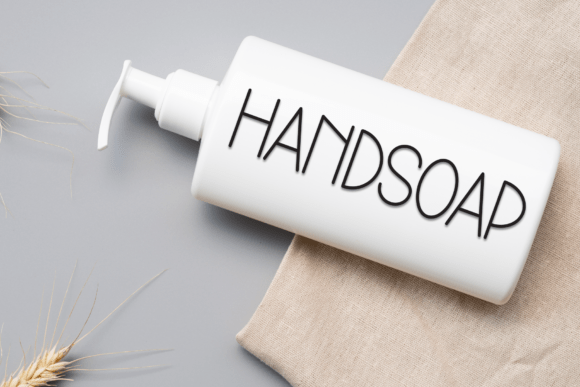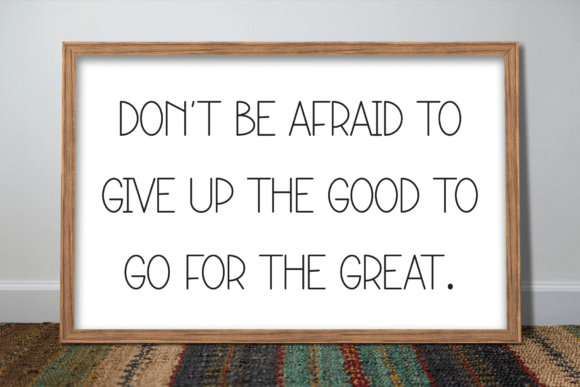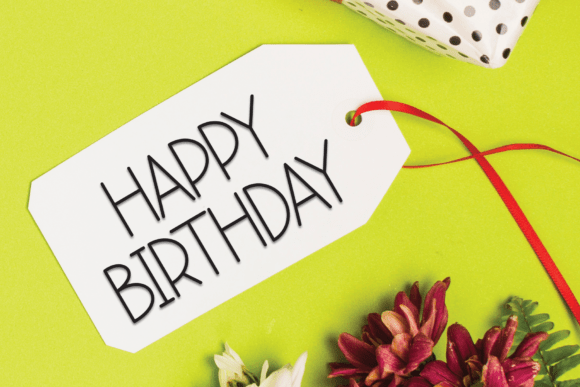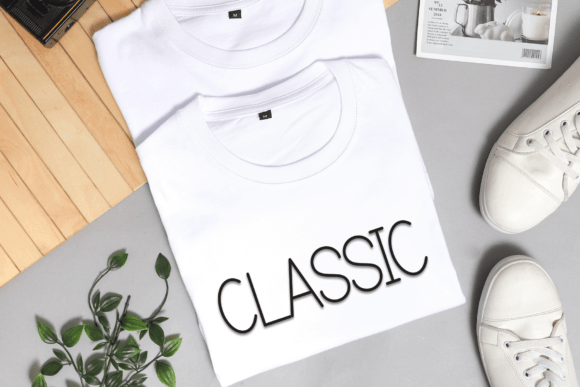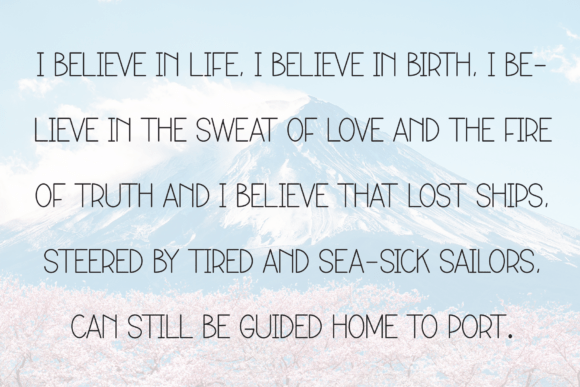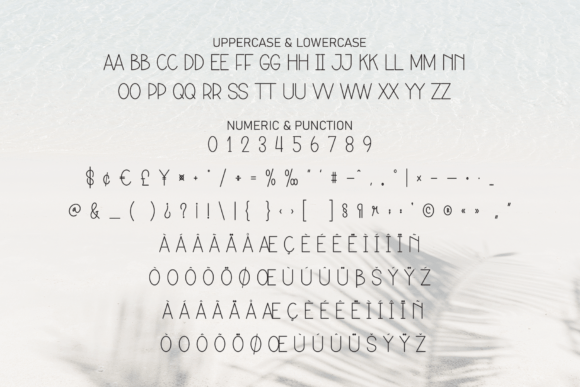
Discovering the Perfect Font for Your Next Design Project
Have you ever stared at a blank page, trying to come up with the perfect font to match your brand’s personality? It’s a challenge many designers face, but it’s also an opportunity to discover something truly special. For me, it happened on a sunny beachside morning, where the sound of the waves and the warmth of the sun inspired a sense of calm and creativity.
That’s when I stumbled upon the Beach Minimalist Font, a beautiful display font that embodies the carefree spirit of the beach. With its clean lines, balanced letterforms, and subtle rounded edges, it’s the perfect combination of simplicity and approachability. This versatile font is ideal for branding, headlines, packaging, and digital content, adding a warm and inviting touch to any design.
Whether you’re a seasoned designer or just starting out, the Beach Minimalist Font is a valuable addition to your toolkit. Its crisp structure and charming style deliver clarity and charisma in equal measure, making it a must-have for any design project.
Beach Minimalist Font Key Features
- Font Styles: Beach Minimalist Font offers a range of styles, including Regular, Italic, Bold, and Bold Italic, to cater to various design needs.
- Character Set: The font includes a comprehensive set of characters, including uppercase and lowercase letters, numbers, punctuation, and special characters.
- Resolution: Designed to work at high resolutions, making it perfect for use in print and digital media, including web design, advertising, and publishing.
- Size Range: Suitable for use in various font sizes, from 12px to 72px, making it versatile for different design applications.
- Unique Characteristics: The font features a clean, minimalist design with subtle beach-inspired elements, such as wave-like curves and gentle textures, adding a touch of elegance and sophistication.
Beach Minimalist Font Review
I recently had the chance to work with the Beach Minimalist Font, and here’s my honest take on it. ✨ One thing I really like is the airy, laid-back feel it brings to any design project. The font is perfect for beach-themed websites, travel blogs, or any other project that needs a relaxed vibe.
- The Beach Minimalist Font is incredibly easy to read, even at smaller sizes.
- The font’s minimalist design makes it versatile and easy to pair with other fonts.
- The Beach Minimalist Font is available in a range of weights and styles, giving you plenty of options for your design.
However, there are a few limitations to consider ⚠️. For example, the font may not be the best choice for projects that require a more formal tone. Additionally, some users may find the font too simplistic or lacking in personality.
Overall, I think the Beach Minimalist Font is a great choice for designers looking to add a relaxed, beachy feel to their projects. It’s easy to use, versatile, and perfect for a wide range of applications.
The Beach Minimalist Font is ideal for creating a relaxed, beachy vibe in your designs. Use it for:
- Summer-themed promotions and advertisements.
- Beach-themed wedding invitations and stationery.
- Travel and outdoor-related designs.
For the best results, pair the Beach Minimalist Font with a clean and simple design aesthetic and plenty of white space.
Alternatives to Beach Minimalist Font
Open Sans is a modern sans-serif font designed by Steve Matteson. It’s highly legible and works well for digital interfaces, such as websites and mobile apps. It’s also suitable for body text, headings, and titles.
Comparison to Beach Minimalist Font: Open Sans has a more rounded and friendly feel, while Beach Minimalist Font is more geometric and minimalist. Open Sans is a more versatile font, suitable for a wider range of applications.
Lato is a sans-serif font designed by Łukasz Dziedzic. It’s a clean and modern font that works well for digital and print materials. It’s suitable for body text, headings, and titles, and is particularly effective for use in logos and branding.
Comparison to Beach Minimalist Font: Lato has a more elegant and refined feel, while Beach Minimalist Font is more minimalist and geometric. Lato is a more sophisticated font, suitable for use in high-end branding and design.
For optimal readability, we recommend using a font size between 12 and 18 points, depending on the intended use and target audience. A line height of 1.2 to 1.5 times the font size is also recommended to ensure comfortable reading. You can adjust these settings in your design application to achieve the best results.